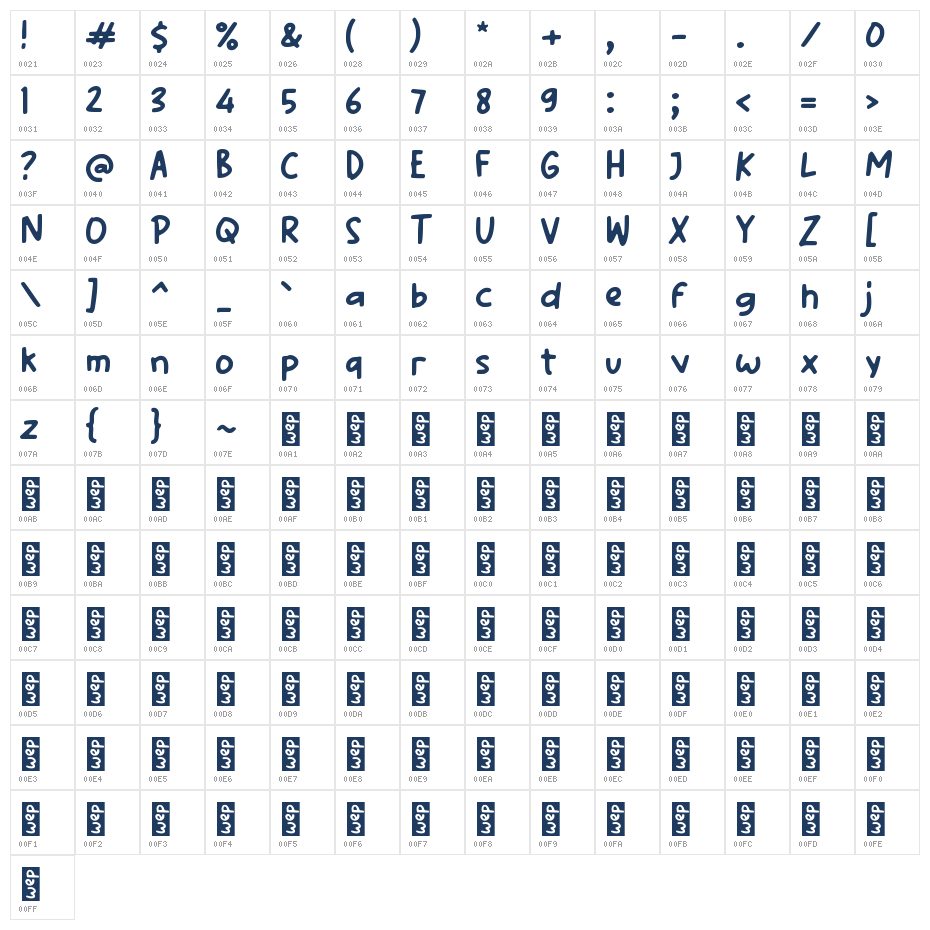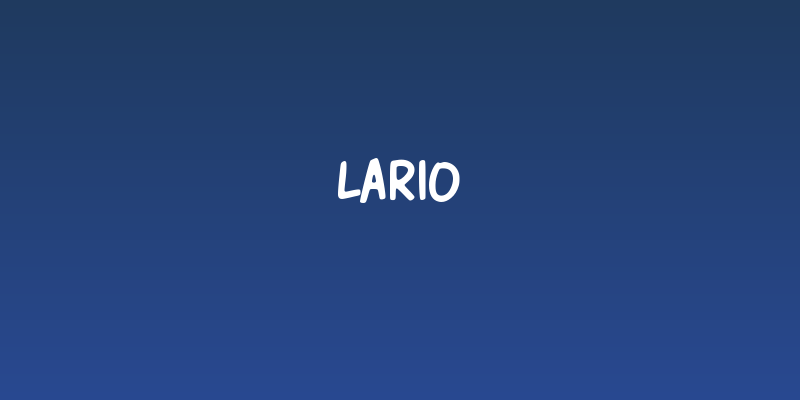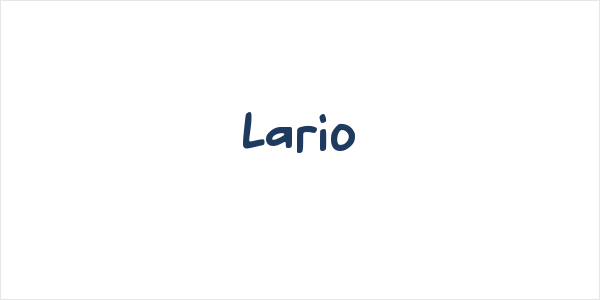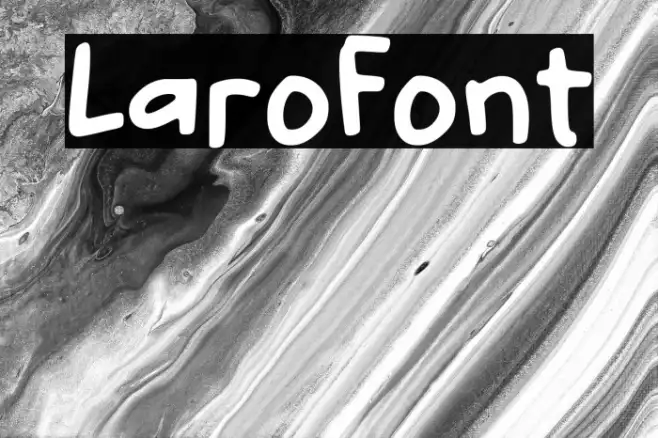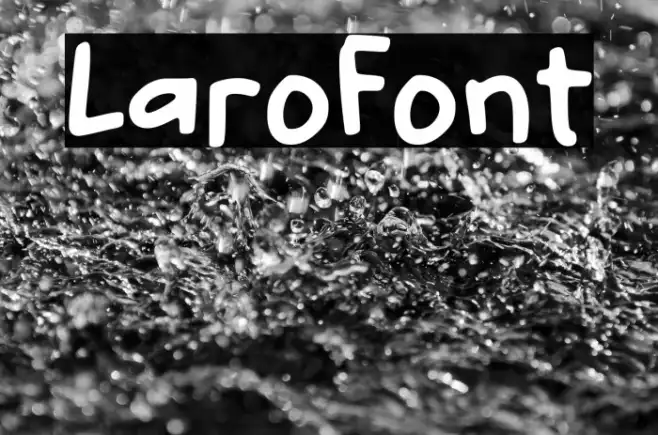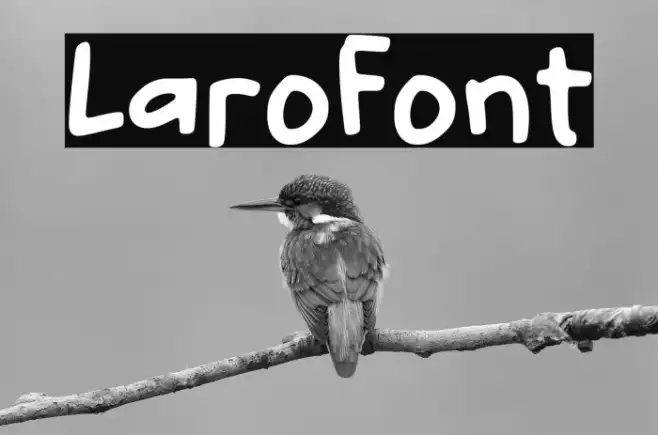
Lario Font
Lario Description
A playful, handwritten style font with rounded, informal characters and a casual appearance.
LARIO UPPERCASE
LARIO LOWERCASE
LARIO OTHER CHARS
| Overall Style | Casual, Playful, Informal |
| Use Case | Headlines, Body text, Logos, Invitations |